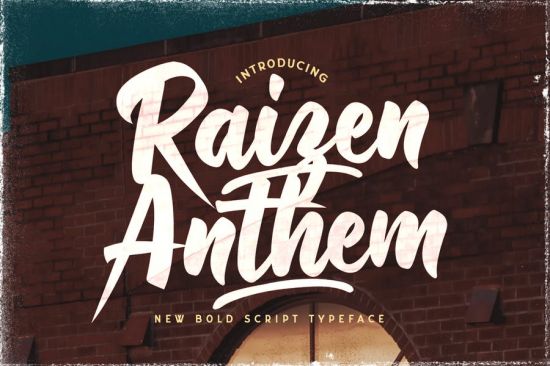
Introducing Raizen Anthem - Bold Script Font
Raizen Anthem is a flowing handwritten font, described by an elegant touch, ideal for your urban creations. Get inspired by its distinct style and use it to create lovely designs!